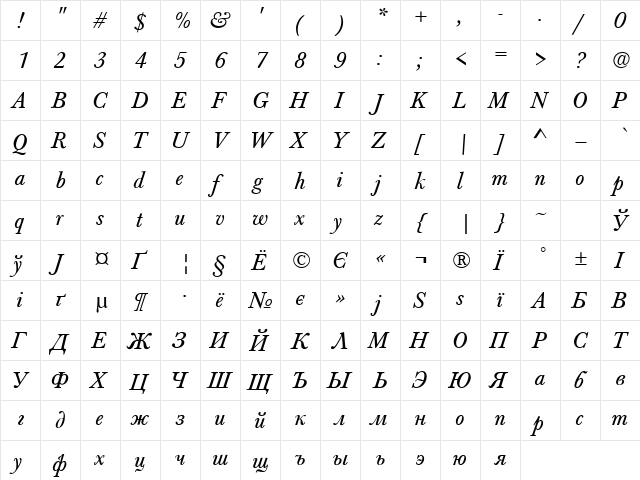
Baskerville_A.Z_PS Normal-Italic
Design Context for Baskerville_A.Z_PS Typeface
Baskerville_A.Z_PS offers clean, dependable letterforms without strong stylistic allegiance, making it a practical choice for designers who need flexibility. The slanted form adds forward momentum and visual energy.
Pro Tip: Use Baskerville_A.Z_PS for emphasis, pull quotes, and subheadings where its slanted energy can add rhythm to the layout.